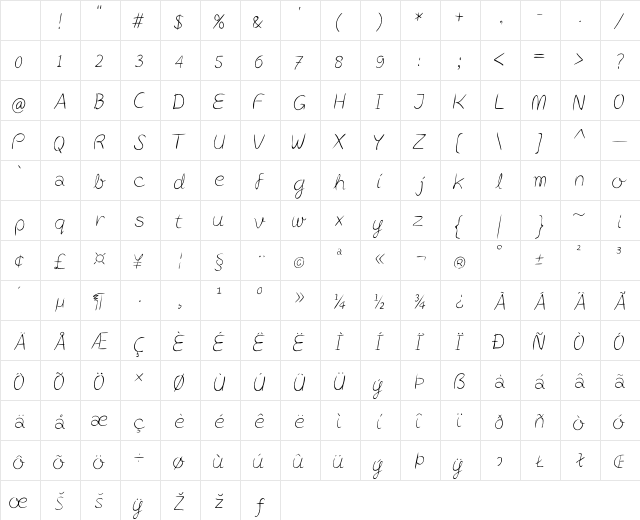
Complete Post-it Pen Script glyph index. Displaying only characters natively supported by Post-it Pen Script font.
Post-it Pen Script flows with the natural rhythm of handwritten lettering, making it ideal for designs that call for warmth and personal expression.
Font Pairing: Combine Post-it Pen Script with a simple geometric sans for maximum contrast - the tension between flowing curves and clean structure is a classic typographic pairing.
Pro Tip: Use Post-it Pen Script for short runs of text - names, titles, or taglines. Extended body copy in script faces tires the eye quickly.